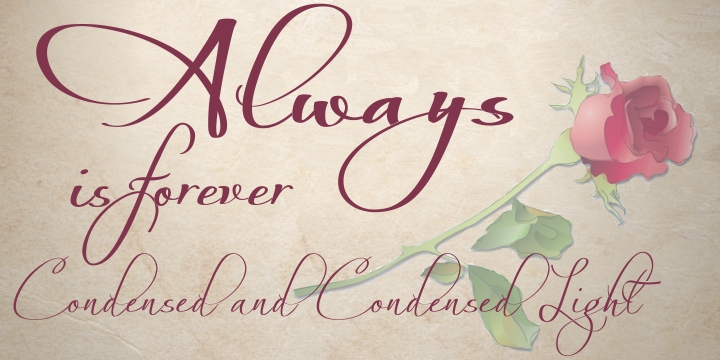
Please note, you must purchase this font for commercial use. You can download Always Font Free Download for testing purposes and explore its elegant, modern design. Always Font is perfect for branding, wedding invitations, logos, and any project that requires a clean, stylish, and timeless touch.
With its smooth, flowing curves and elegant script design, Always Font brings a sense of sophistication and warmth to your projects. It's ideal for designs that need to convey romance, elegance, and a personal touch, making it perfect for event invitations, custom branding, and creative designs.
Always Font Free Download supports multilingual characters, making it suitable for global projects. Its legible yet beautiful design ensures readability across both print and digital formats while maintaining its unique script style.